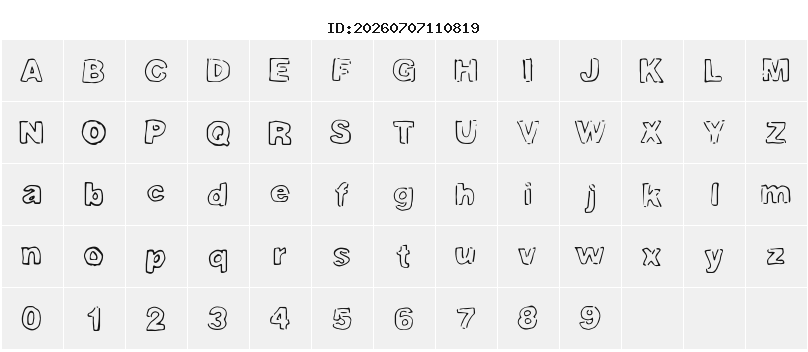
• Font Name: DeliciousOutline
• Font ID: DeliciousOutline:Version 1.00
• Full Font Name: DeliciousOutline
• Version: Version 1.00 August 20, 2012, initial release
• PostScript Name: DeliciousOutline
• Character Count: 101
• Designer: Max Infeld
• Manufacturer: Xerographer Fonts
• Description: This font at Empire Coffee chico,CA
About DeliciousOutline.ttf
DeliciousOutline.ttf is a modern, elegant sans-serif font designed for ultimate readability and visual harmony. Perfect for branding, headlines, web design, and print materials.